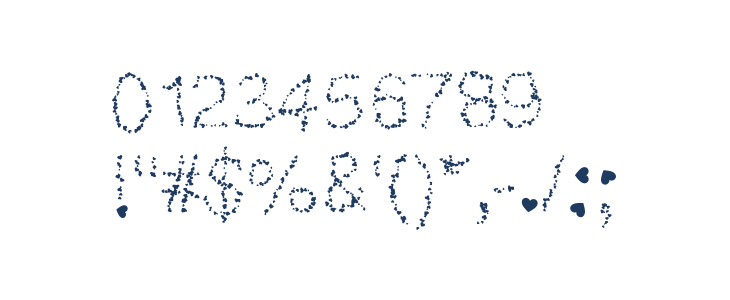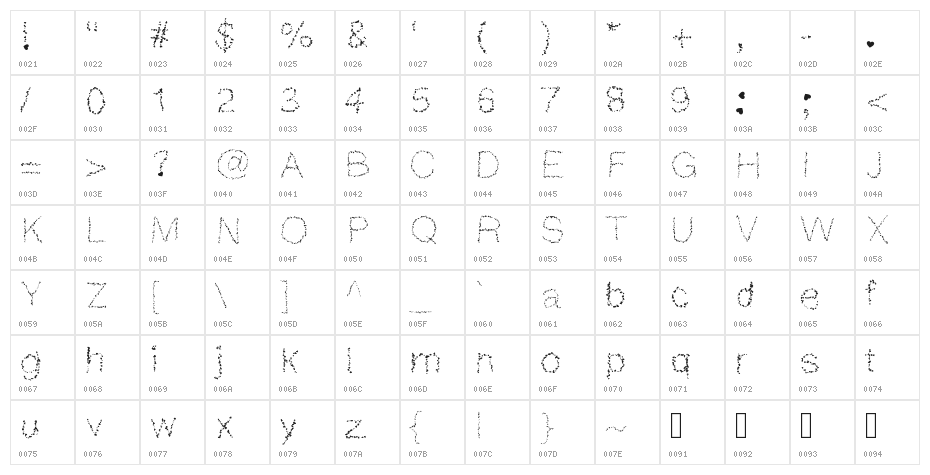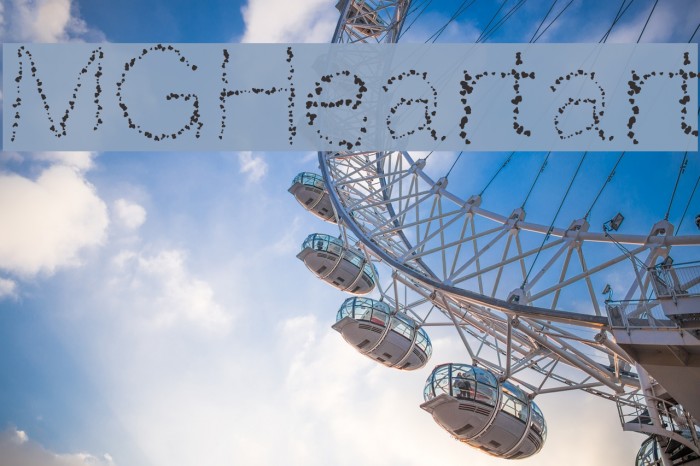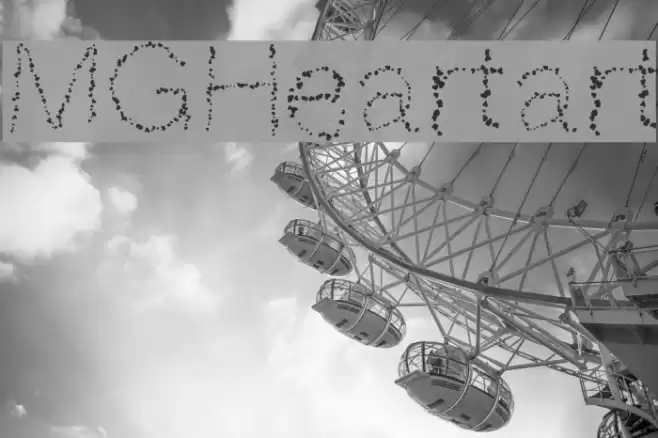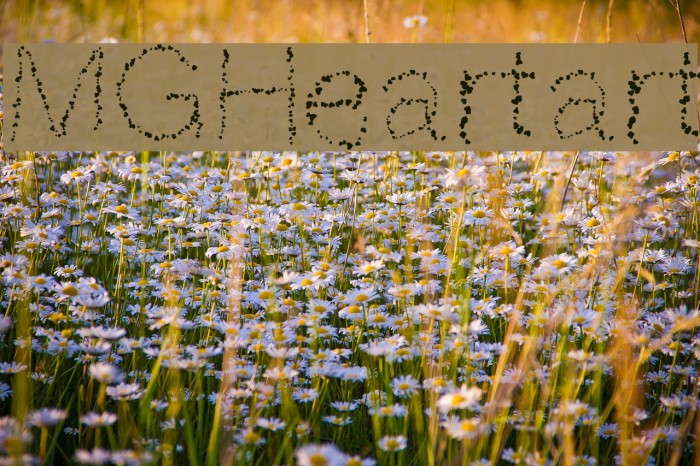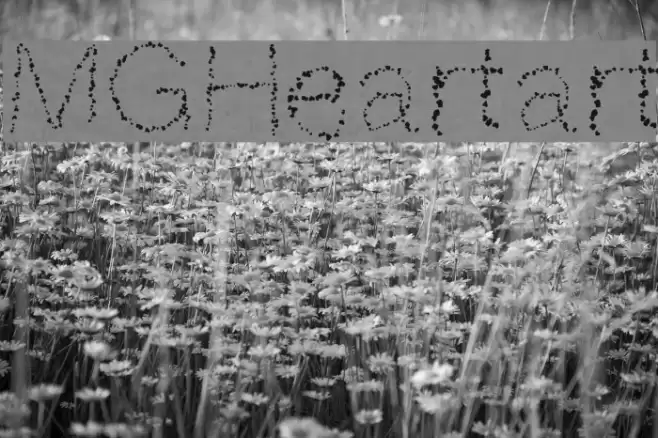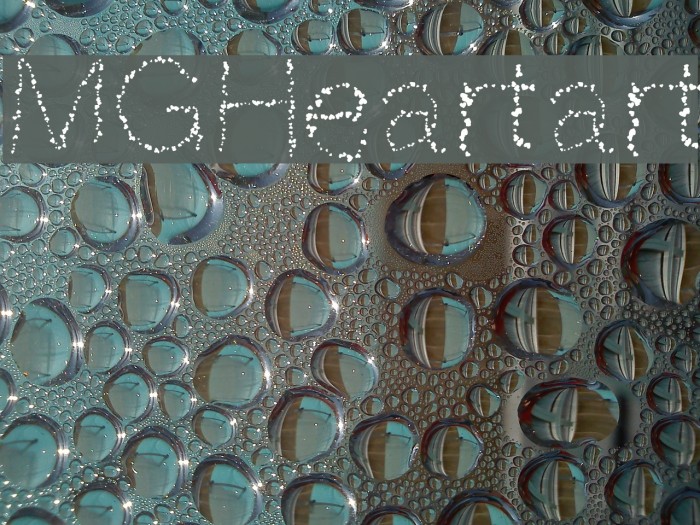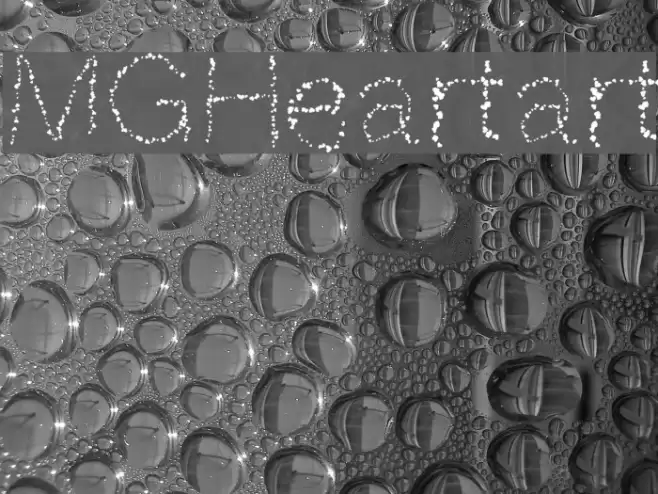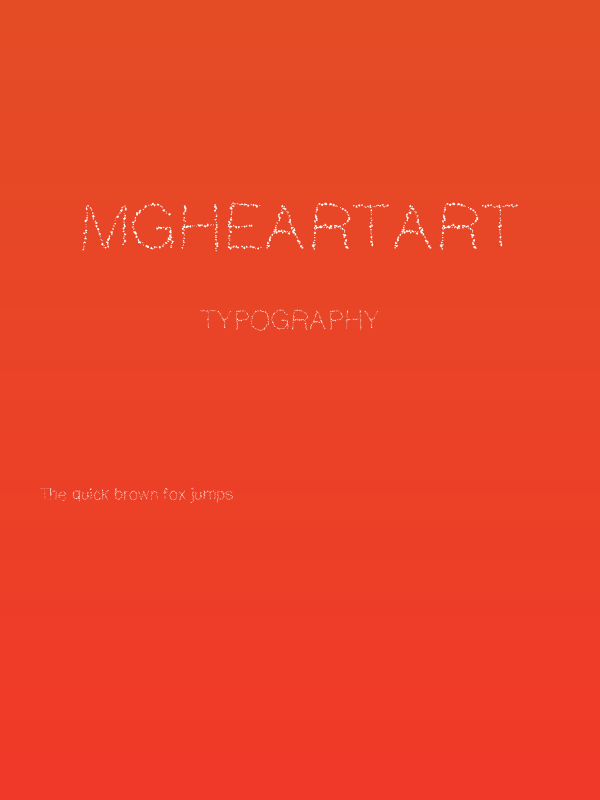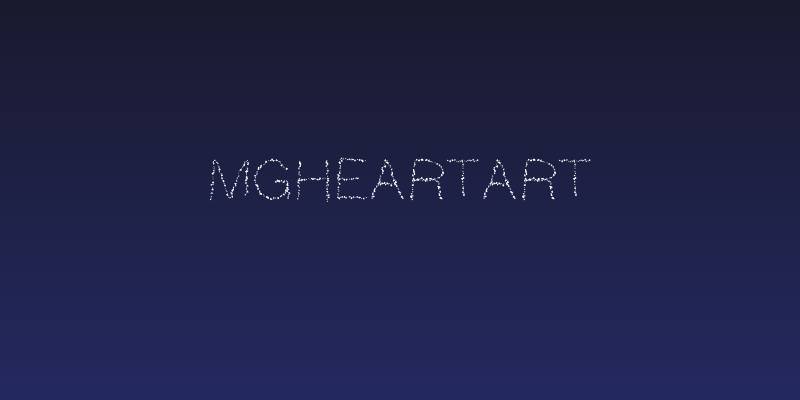
MGHeartart Font
MGHeartart Description
This font features a unique design where each character is composed of small heart shapes, creating a playful and whimsical appearance. The letters are evenly spaced and maintain a consistent size, giving the font a cohesive look. The uppercase and lowercase letters, as well as numbers and special characters, are all crafted with the same heart motif, making it ideal for projects that require a touch of romance or fun. The font's decorative style is eye-catching and can add a distinctive flair to any design.
| Proposed Projects | Ideal for Valentine's Day cards, wedding invitations, love-themed posters, and playful branding projects. |